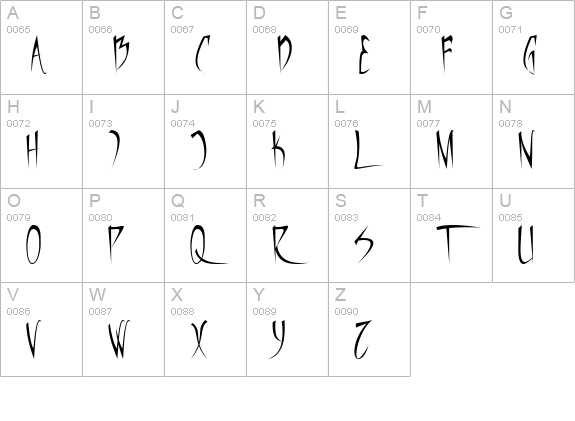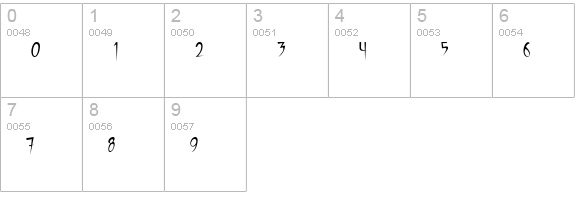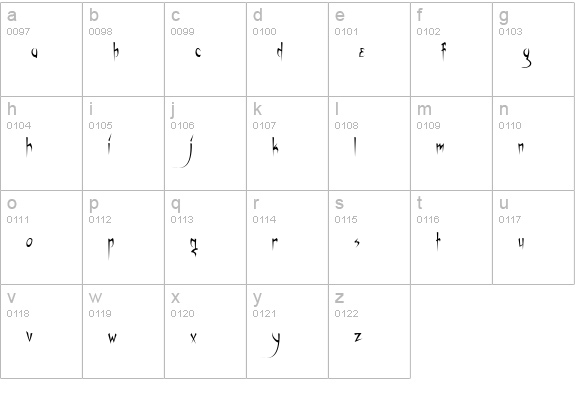
Vampiress Font Details
Introducing the mesmerizing Vampiress font, a bewitching typeface that exudes an aura of mystery and allure. With its elegant and intricate design, Vampiress captures the essence of the night, embodying the enigmatic charm of nocturnal creatures. This vampiric font features beautifully curved serifs, reminiscent of delicate fangs, adding a touch of danger and seduction to any text. Its flowing strokes and graceful letterforms create a sense of motion, as if each character is gracefully gliding across the page. Vampiress is the perfect choice for those seeking a font that oozes sophistication and dark allure. Whether you're designing a gothic-inspired poster, a haunting book cover, or a captivating logo, this font will instantly add an air of mystique to your creations. But the best part? Vampiress is completely free! Yes, that's right, this alluring font is freely available to download at FontsMarket.com. Embrace the darkness and let Vampiress elevate your designs to new heights. Don't miss out on this captivating font that will leave a lasting impression on your audience. Unleash your creativity and allow Vampiress to guide you into the realm of the unknown. Download it now and experience the power and allure of this mesmerizing typeface.